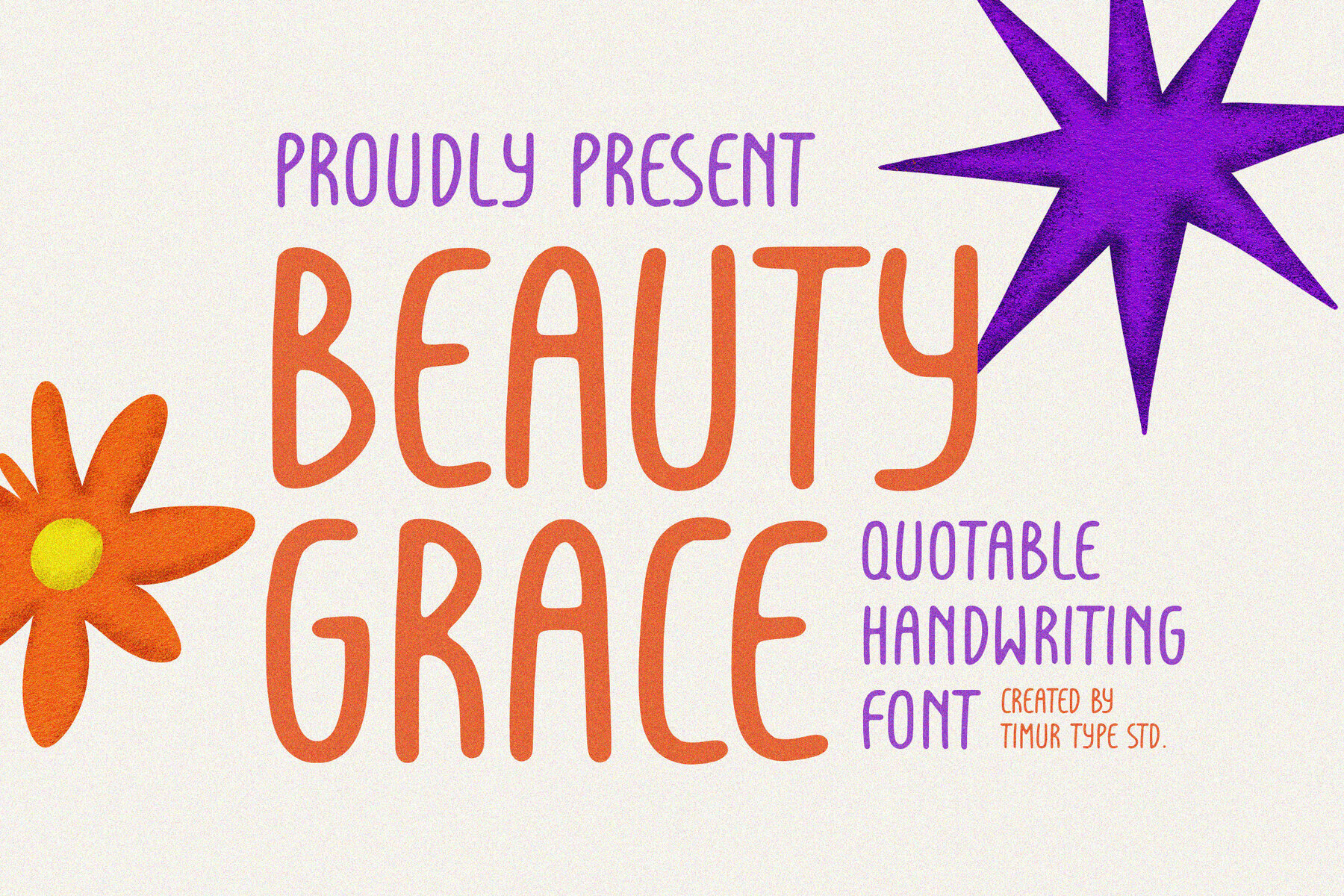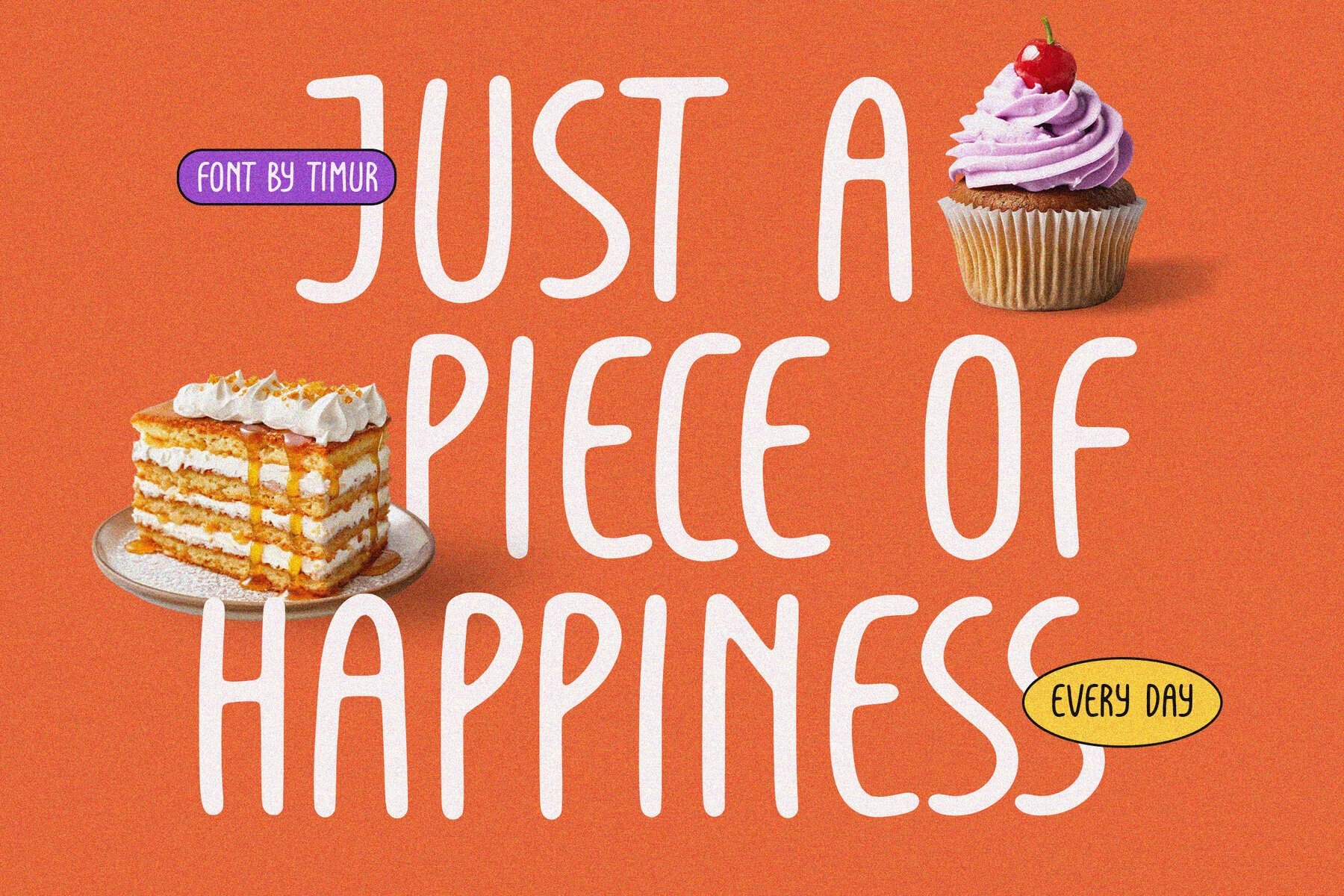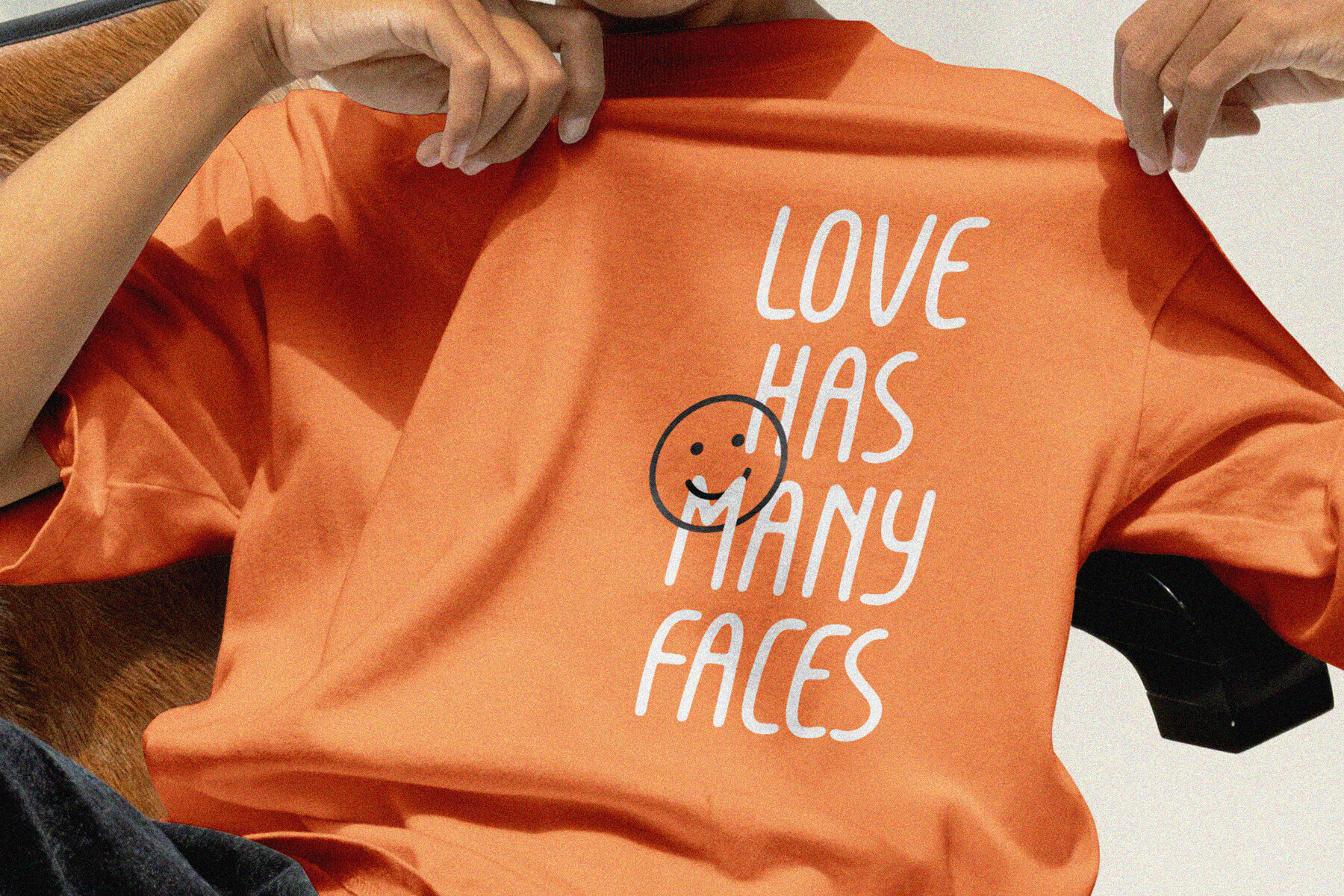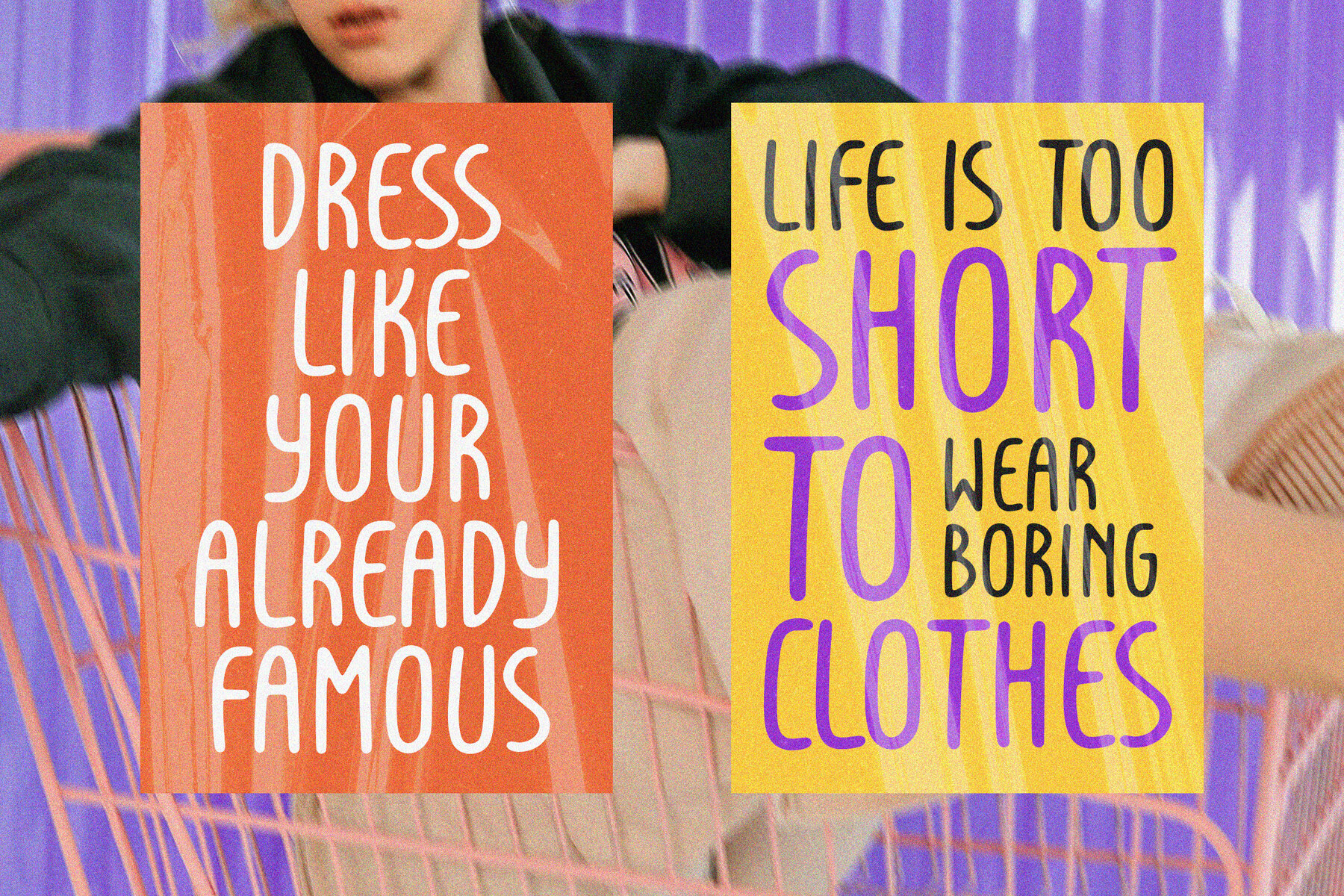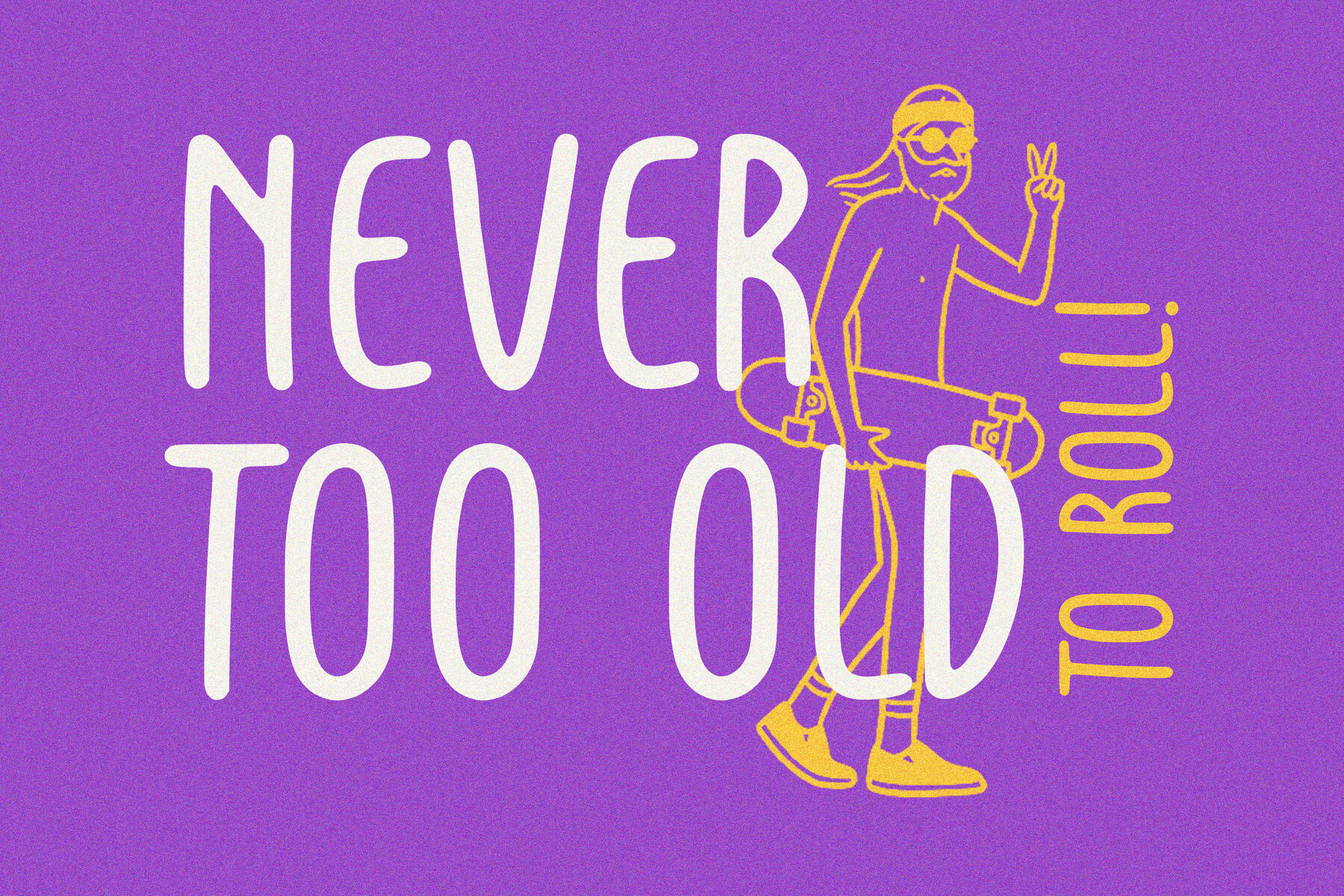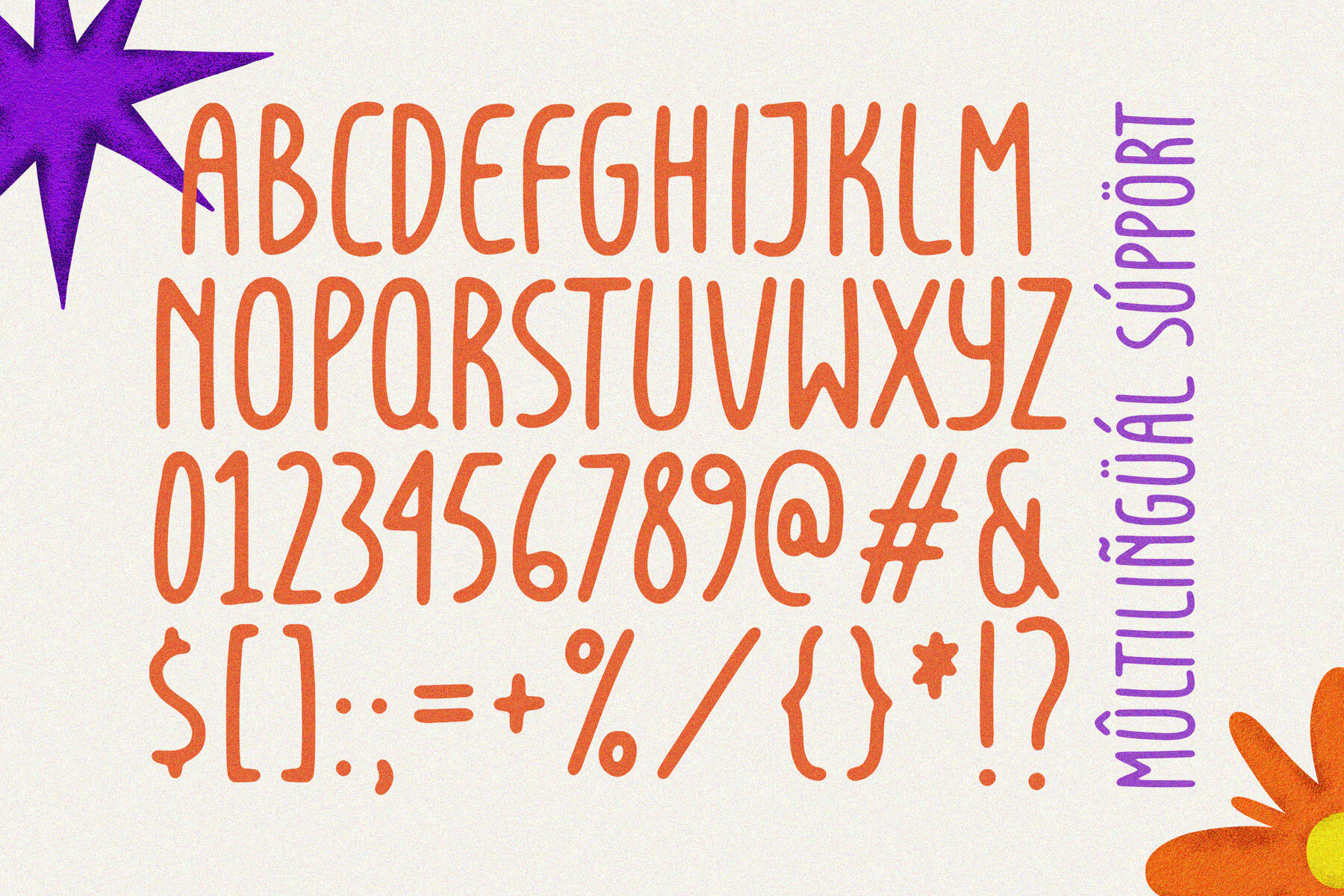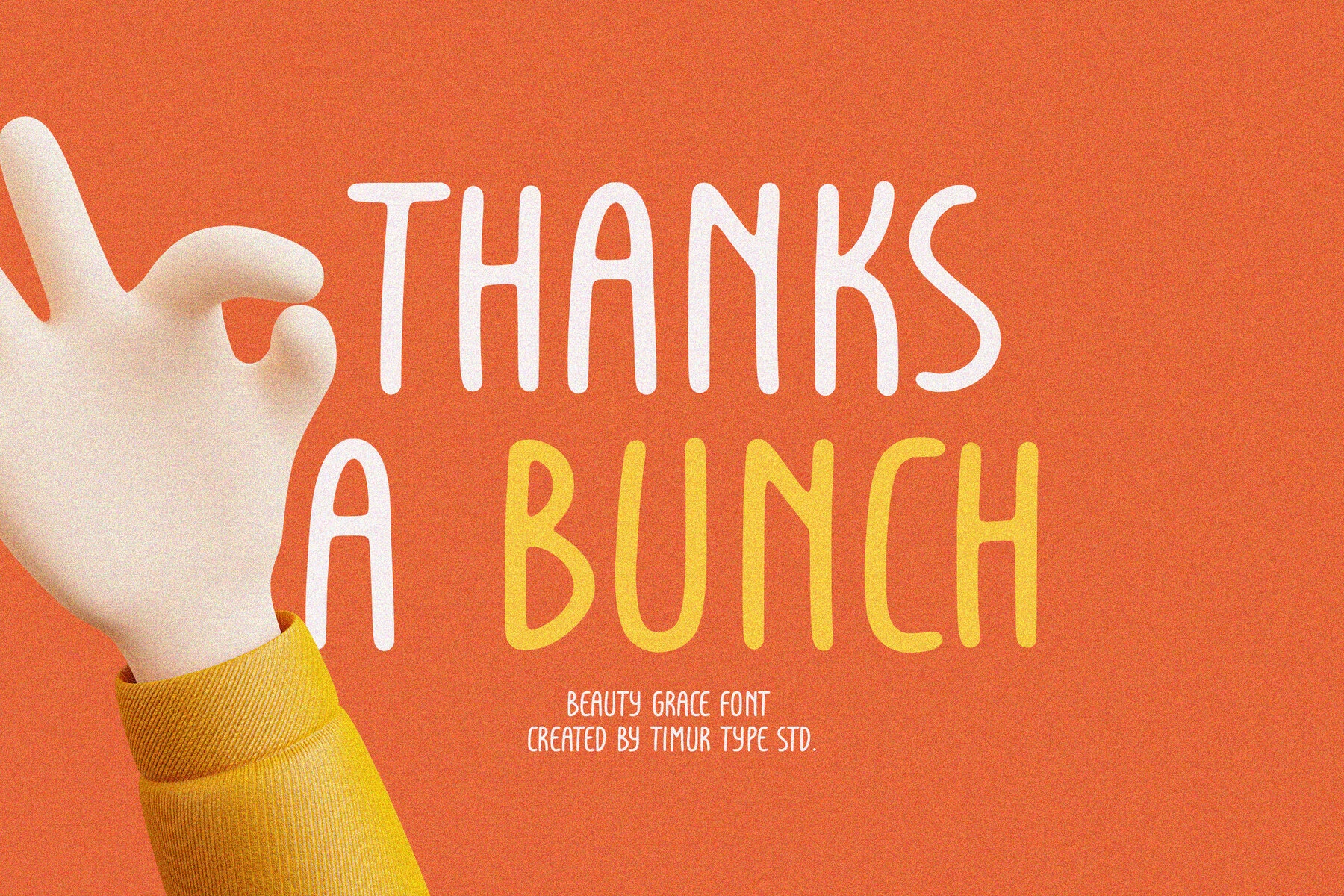
Beauty Grace
Beauty Grace is an elegant, versatile handwriting display font designed to enhance quotes, logos, invitations, and branding materials. Its smooth curves and natural flow emulate the charm of handwritten text, providing a touch of sophistication and warmth to any design project.
Whether you're crafting a memorable logo or a heartfelt invitation, Beauty Grace offers the flexibility to suit diverse design needs. Its refined elegance and classic appeal make it an excellent choice for designers looking to add a graceful touch to their work.